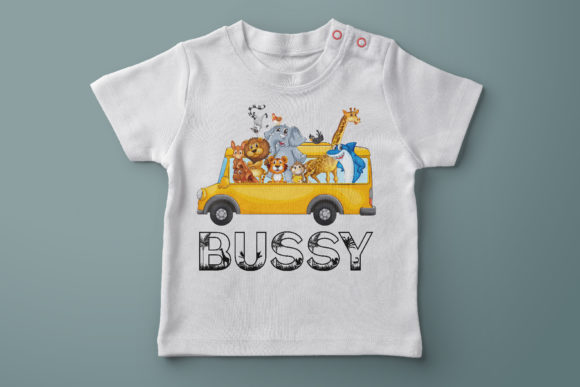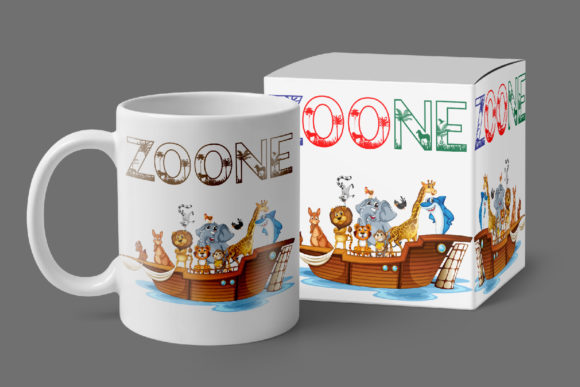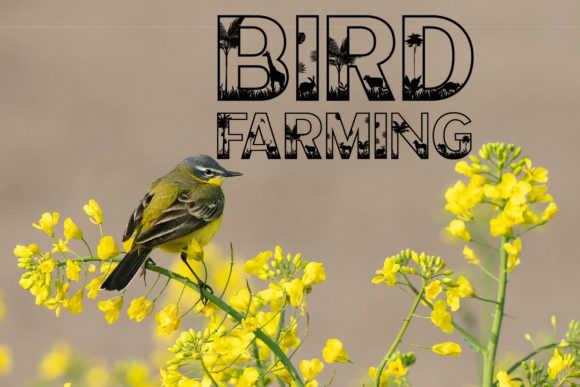
Discover the Whimsy of Gorona Font
Who hasn’t had that moment when flipping through a children’s book and being instantly charmed by the playful illustrations and imaginative typography? For designers, it’s a moment that sparks creativity and inspires new ideas. That’s exactly what inspired the creation of the Gorona Font – a decorative font that captures the essence of kids’ books and adds a touch of whimsy to any design.
The Gorona Font is perfect for designers looking to add a playful twist to their work. Whether it’s a t-shirt design, a headline, or a social media post, this font is sure to bring a smile to the viewer’s face. Its value lies in its versatility and ability to evoke a sense of nostalgia and wonder.
Gorona Font Key Features
- Unique Characteristics: The font features a unique blend of modern and traditional design elements, with a distinctive flair that sets it apart from other sans-serif fonts.
Gorona Font Review
As a designer, I’ve had the chance to work with a variety of fonts, and my experience with Gorona has been interesting. Here’s my honest review.
- The unique blend of modern and vintage elements in Gorona makes it stand out in a crowd. It’s a great choice for designers looking to add some personality to their projects.
- The font’s high x-height makes it highly legible, even at smaller font sizes. This is a major plus for designers who need to ensure their text is readable across various platforms.
- Gorona’s elegant curves and rounded edges give it a friendly, approachable feel that works well in a variety of contexts, from branding to editorial design.
- One of Gorona’s major drawbacks is its limited font size range. It can become too condensed at smaller sizes, losing some of its charm and legibility.
- The font’s weight and style options are also somewhat limited, which can make it difficult to achieve the desired level of contrast and visual interest in certain designs.
Gorona is a solid choice for designers looking to add some flair to their projects. While it has some limitations, its unique blend of modern and vintage elements makes it a great option for those seeking a distinctive look. With some careful consideration and planning, Gorona can be a valuable addition to any designer’s toolkit.
Use Gorona Font for creative and artistic designs, such as:
– Social media posts
– Flyers and brochures
– Infographics and charts
Experiment with different font sizes, colors, and styles to get the most out of Gorona Font.
Alternatives to Gorona Font for Designers
Montserrat is a sans-serif font that is highly legible and versatile. It is best used for body text and headings in digital and print media. Montserrat is similar to Gorona Font in terms of its clean and modern aesthetic, but it has a more geometric feel.
Open Sans is a clean and modern sans-serif font that is highly legible and versatile. It is best used for body text and headings in digital media, such as websites and mobile apps. Open Sans is similar to Gorona Font in terms of its friendly and approachable feel, but it has a more rounded aesthetic.
Lato is a modern sans-serif font that is highly legible and versatile. It is best used for body text and headings in digital and print media, particularly in situations where a more elegant and sophisticated feel is desired. Lato is similar to Gorona Font in terms of its clean and modern aesthetic, but it has a more refined and polished feel.